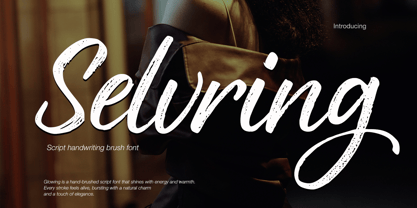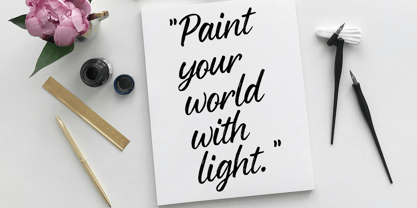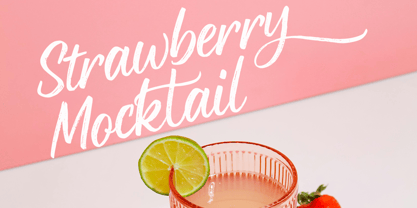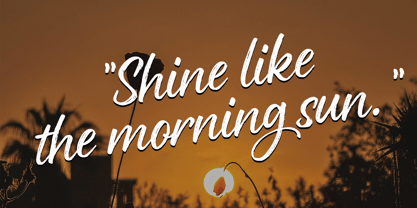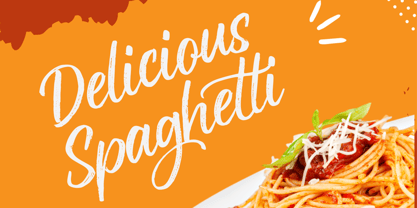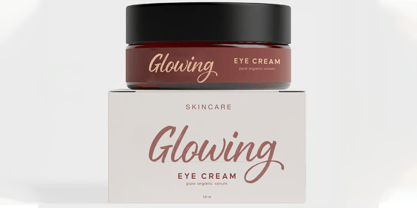
Selvring
by Cocodesign
The Selvring Font Family was designed by Muhammad Zaini and published by Cocodesign. Selvring contains 1 styles. More about this family
Selvring is a hand-brushed script font that shines with energy and warmth. Every stroke feels alive, bursting with a natural charm and a touch of elegance. Designed to light up your creative projects, Selvringis is perfect for branding, social media graphics, wedding designs, product packaging, and heartfelt quotes. Let your words sparkle and your designs glow — with the vibrant spirit of Selvring
Designers: Muhammad Zaini
Foundry: Cocodesign